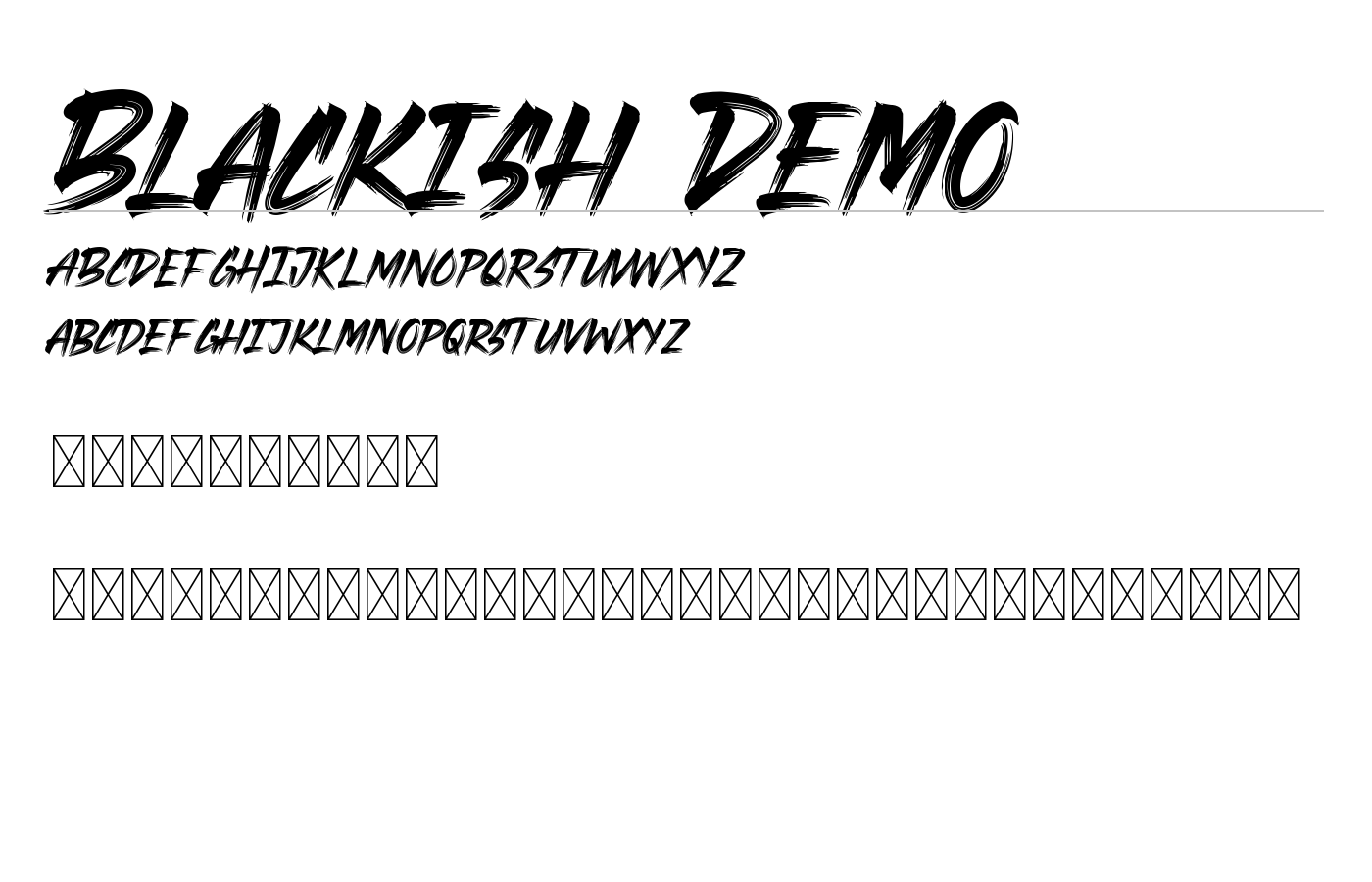
Blackish Demo is a bold, expressive brush-style font with a rough, textured stroke that gives it an energetic and edgy feel. Its condensed letterforms and dynamic, slightly irregular shapes make it perfect for eye-catching headlines, posters, and branding that seeks a hand-painted, rebellious vibe. This font works well for creative projects that want to convey intensity and artistic flair with a modern, informal touch.
Blackish Demo Font
About Blackish Demo Font
| Font family | Blackish Demo Font |